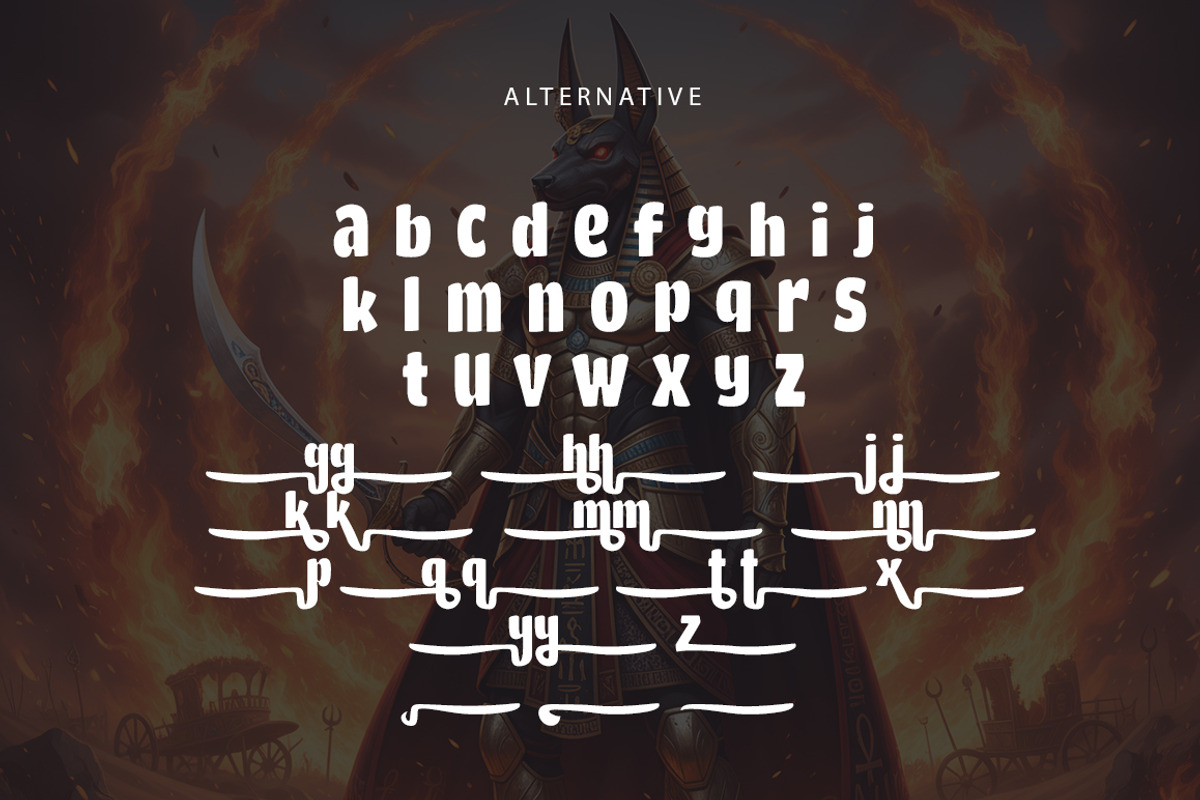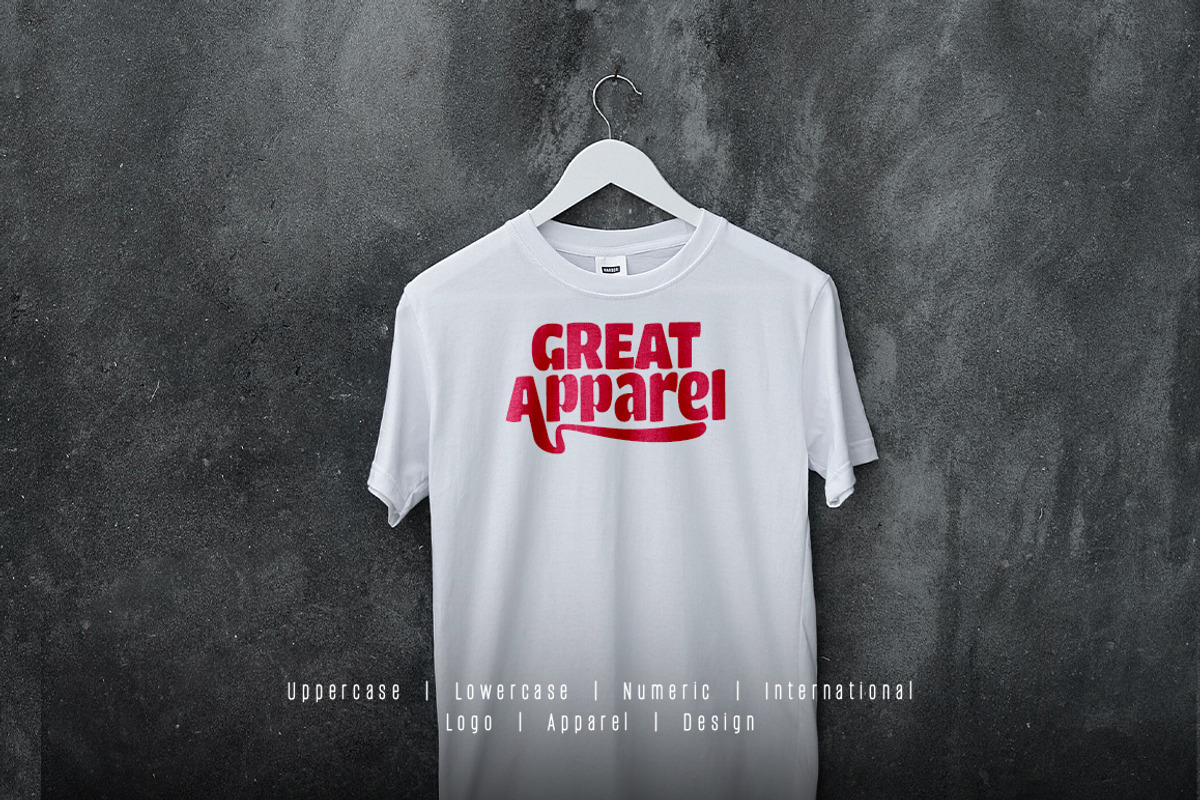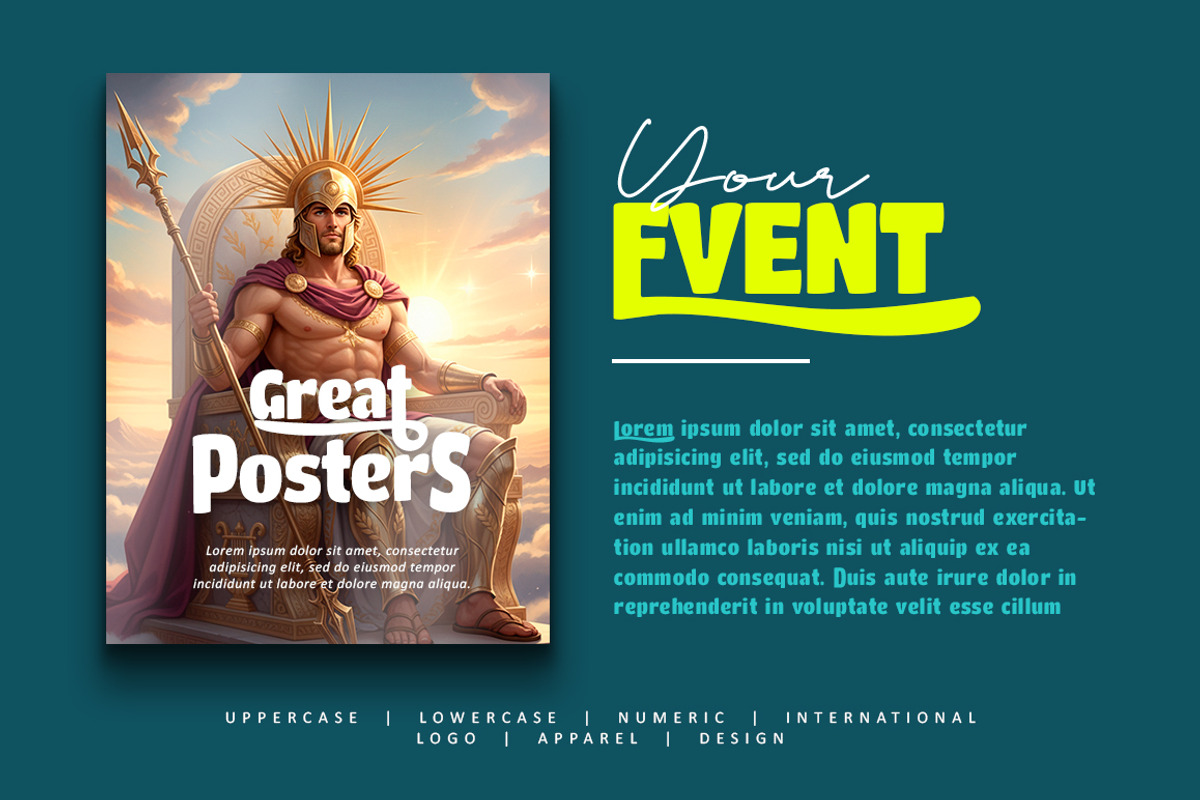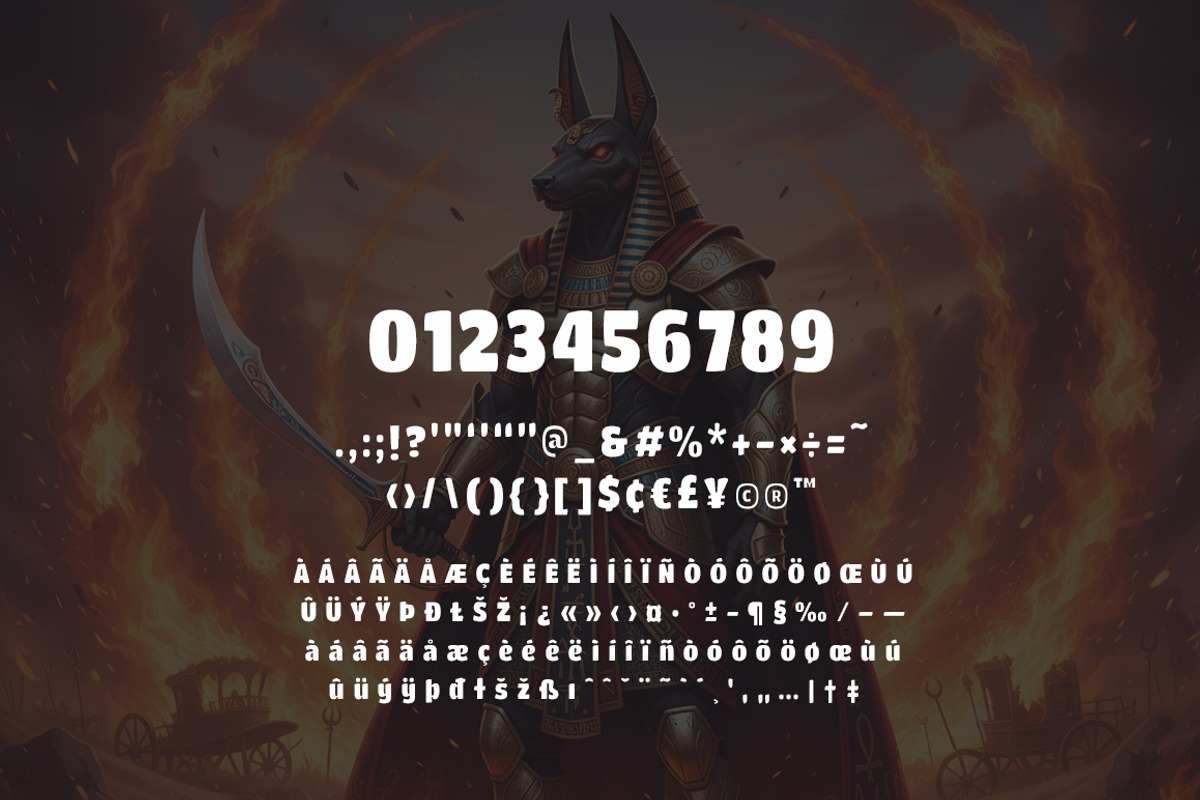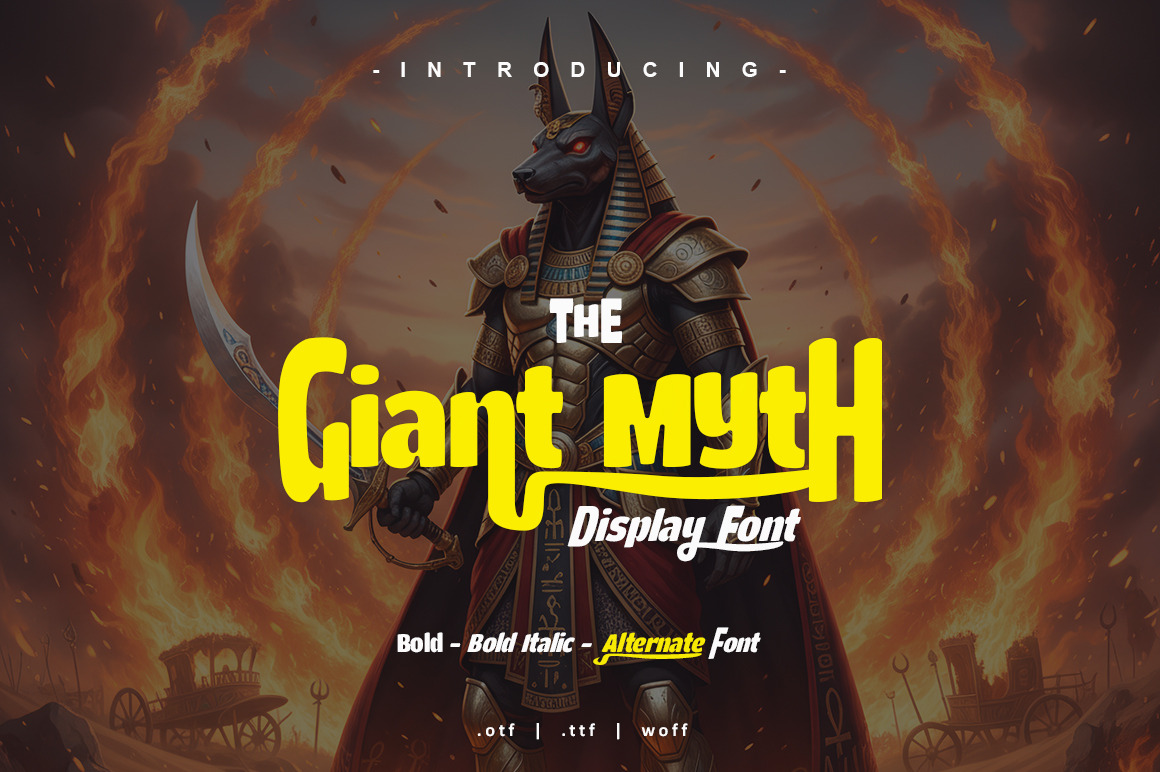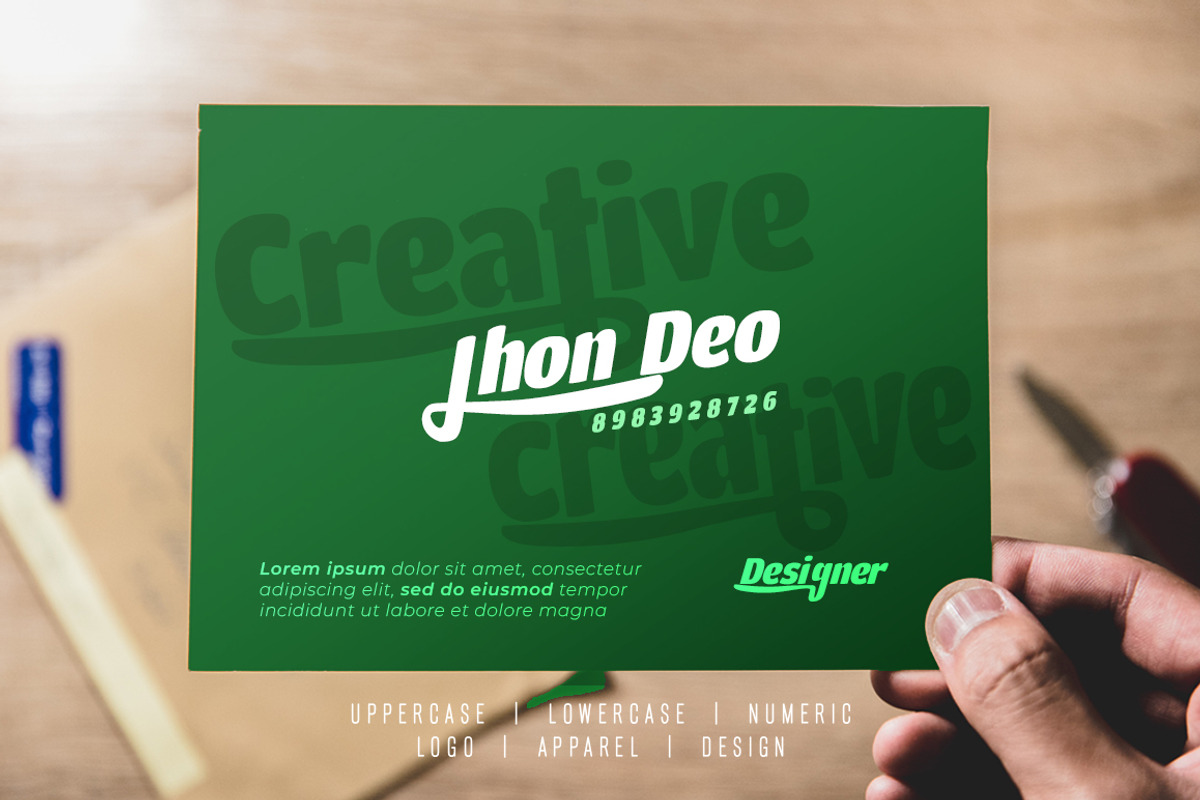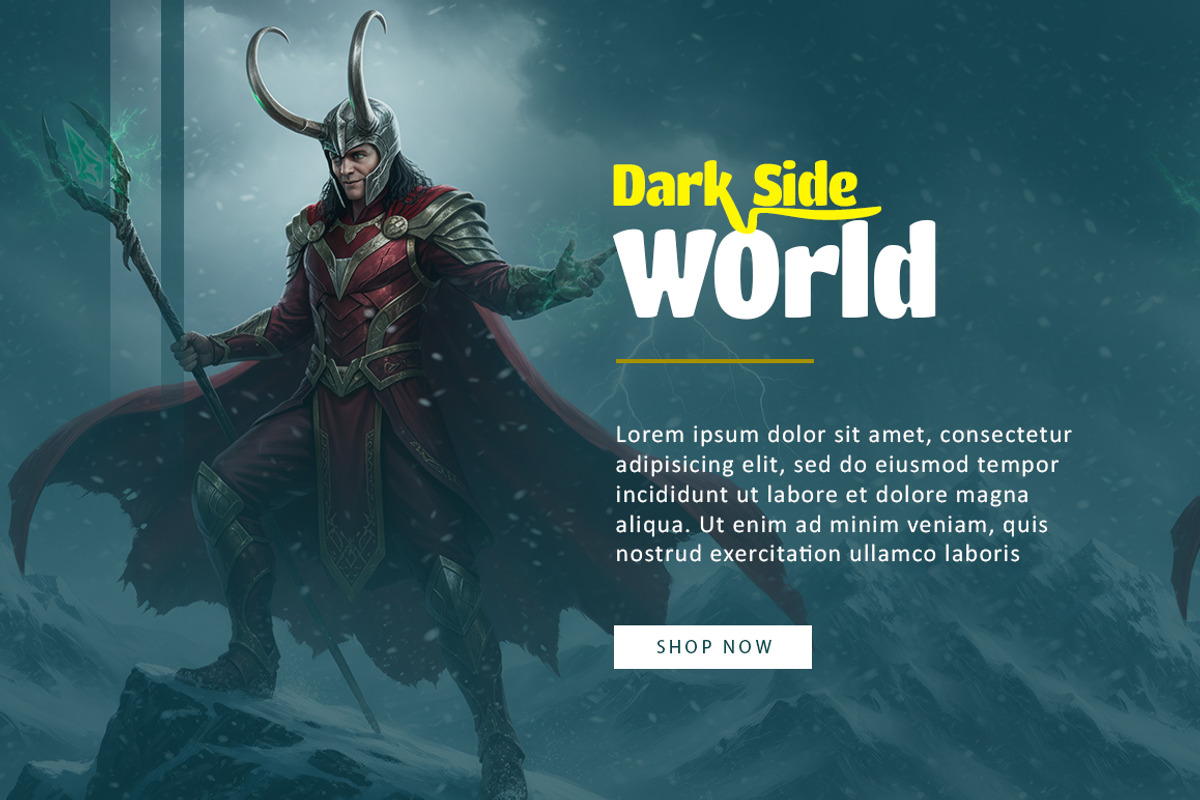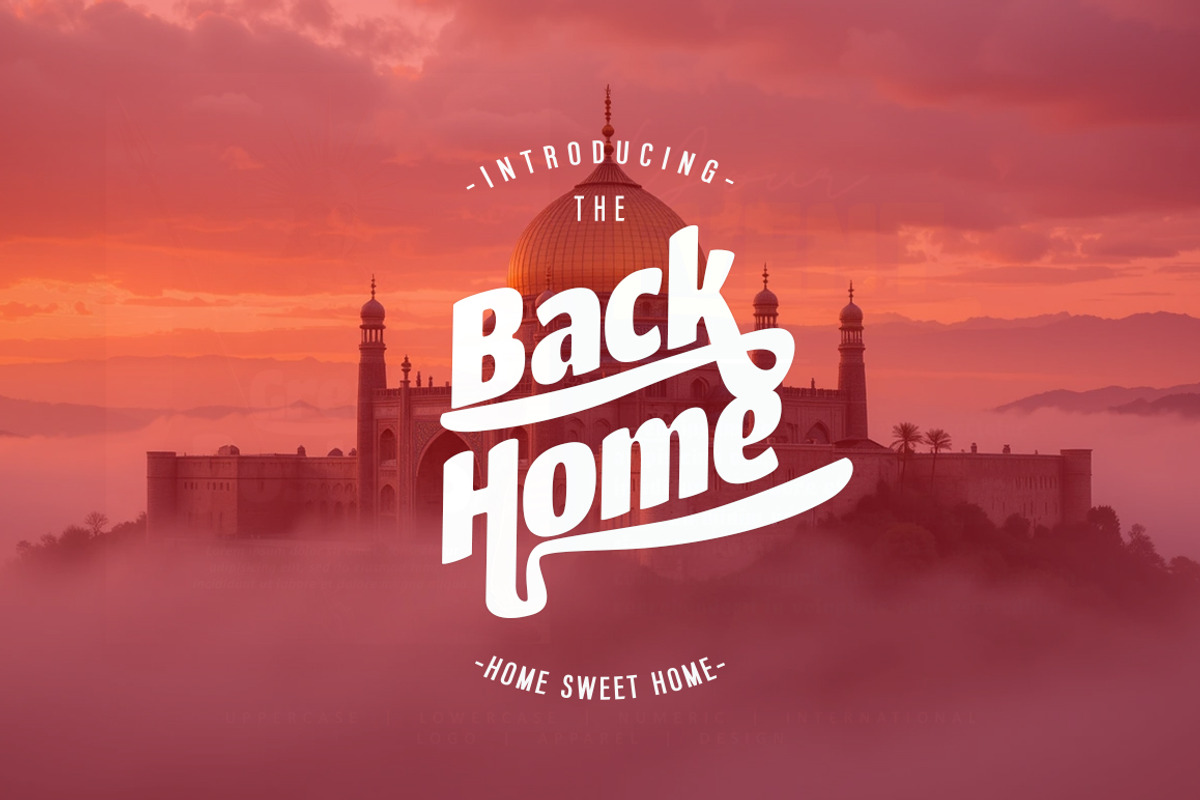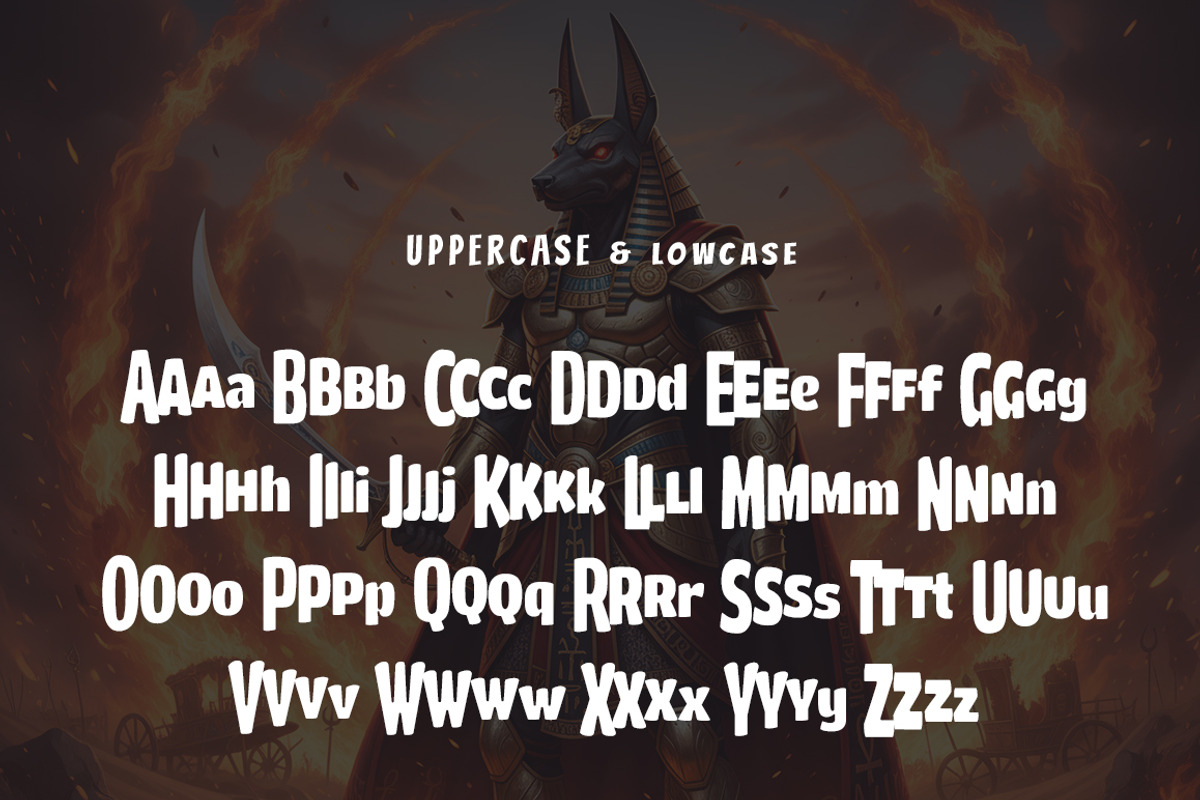
Giant Myth Font
Giant Myth Font very suitable for poster, for logo, music cover, clothing, and many many cool design projects. Giant Myth Font is uppercase, lowercas and numeric. Bold, Bold Italic and Alternate Font